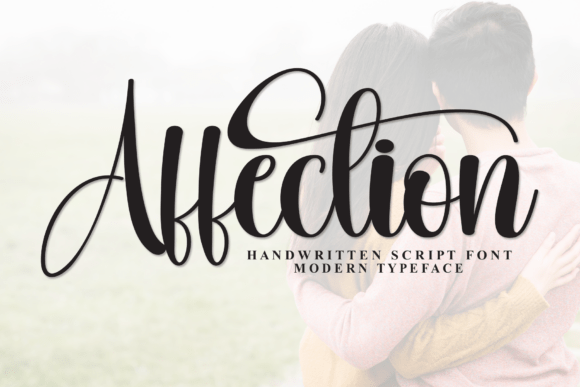
The Affection Font: Elevating Your Designs with Elegance and Sophistication
I’ll never forget the moment I stumbled upon the perfect font for a client’s wedding invitation project. I had been searching for what felt like an eternity, trying out font after font, but nothing seemed quite right. That was until I discovered Affection, a sophisticated and fluid script font that instantly captured the essence of romance and elegance I was looking for.
With its rhythmic visual flow, characterized by thick downstrokes paired with fine, sweeping connectors, Affection exudes a sense of customized artistry that feels high-end and personal. In this article, I’ll dive into the world of Affection, sharing my honest review, practical tips on how to use it, and exploring similar fonts that might tickle your fancy.
An Honest Review of Affection Font
- ✨ Sophisticated and fluid script: Affection’s elegant design makes it perfect for romantic lifestyle identities, boutique brand identities, and elegant editorial headers.
- ✅ High-end feel: The font’s tall ascenders and long terminal swashes create a sense of luxury and refinement.
- ✨ Versatile: Affection can be used for a wide range of design projects, from professional signature-style logos to wedding invitations and more.
While Affection is an exceptional font, there are a few things to keep in mind:
- ⚠️ Legibility at small sizes: As with many script fonts, Affection may lose legibility when used at very small sizes. It’s best to use it at larger sizes or for headlines.
- 🤔 Pairing with other fonts: Due to its distinctive style, Affection can be a bit challenging to pair with other fonts. Experiment with different combinations to find the perfect match.
The Designer Inspiration Behind Affection
While the true story behind Affection’s creation may be unknown, it’s easy to imagine that the designer was inspired by the art of calligraphy and the elegance of handwritten scripts. Perhaps they spent countless hours studying the works of master calligraphers, experimenting with different letterforms and flourishes to create a truly unique font.
Q: What type of projects is Affection best suited for?
A: Affection is perfect for romantic lifestyle identities, boutique brand identities, elegant editorial headers, and professional signature-style logos.